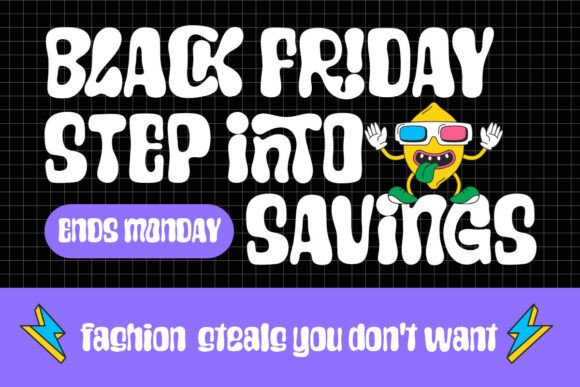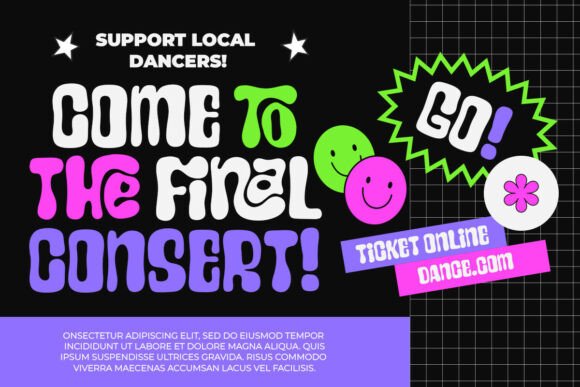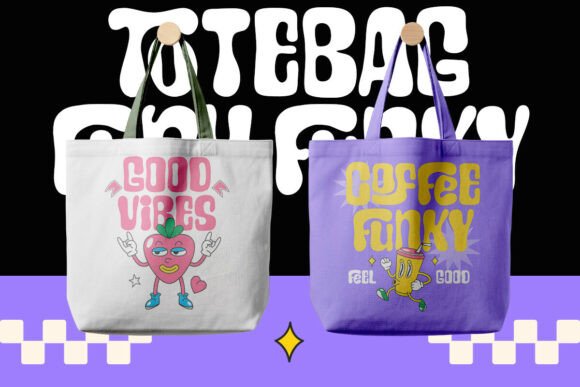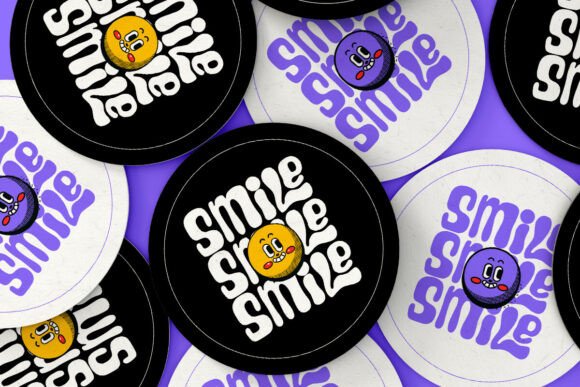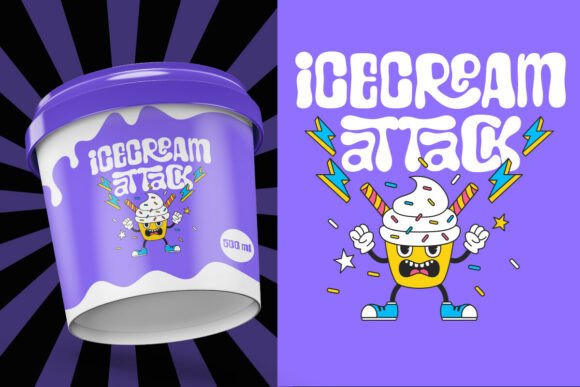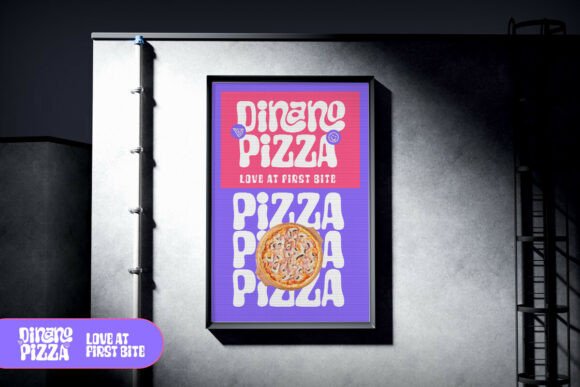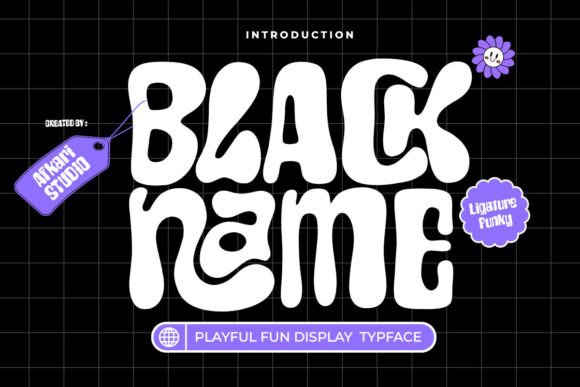
Discover the Playful Charm of Black Name Font
I’ll never forget the time I was working on a branding project for a children’s play center. I had a clear vision of a fun, energetic vibe, but I just couldn’t find the right font to bring it all together. The client wanted something that felt playful, yet professional – a delicate balance that’s easier said than done. That’s when I stumbled upon Black Name Font, and it instantly became the star of the show. In this article, I’ll share my experience with this delightful display font, its features, and how you can make the most of it in your creative projects.
A First Impression: What Makes Black Name Font Special
Black Name Font is a playful and fun display font designed to inject energy, charm, and bold personality into your creative projects. Its chunky letterforms and lively character shapes instantly create a cheerful and eye-catching look that’s sure to stand out in any layout. With its modern, playful style, Black Name works perfectly for projects that require a friendly and approachable tone while maintaining strong readability.
Here’s what I love about Black Name Font:
- ✨ Playful yet professional: Black Name strikes the perfect balance between fun and sophistication, making it suitable for a wide range of projects.
- ✅ Highly readable: Despite its chunky design, Black Name remains clear and easy to read, even at smaller sizes.
- 💥 Versatile: This font can be used for branding, posters, packaging, social media content, and more.
And here are a few quirks to keep in mind:
- 🤔 Limited use cases for body text: Due to its display nature, Black Name might not be the best choice for lengthy body text. Stick to headings, titles, and short paragraphs for maximum impact.
- ⚠️ Glyph limitations: While Black Name offers a range of glyphs and stylistic alternates, it might not have every special character you need. Be sure to check the font’s capabilities before committing to a project.
The Story Behind Black Name Font
Black Name Font was designed with the goal of creating a playful, yet professional display font that could bring energy and charm to creative projects. Inspired by the world of advertising and branding, the font’s designer aimed to craft a typeface that would stand out in any layout while maintaining strong readability. The result is a versatile font that’s perfect for designers, crafters, and creative hobbyists looking to add a joyful and creative touch to their work.
| What type of projects is Black Name Font best suited for? | Black Name Font is ideal for branding, posters, packaging, social media content, and any project that requires a friendly and approachable tone. |
| Can I use Black Name Font for body text? | While Black Name Font is designed for display use, it can be used for short paragraphs or captions. However, for lengthy body text, a more traditional font might be more suitable. |
| Does Black Name Font support OpenType features? | Yes, Black Name Font offers a range of OpenType features, glyphs, and stylistic alternates to help you customize your text. |